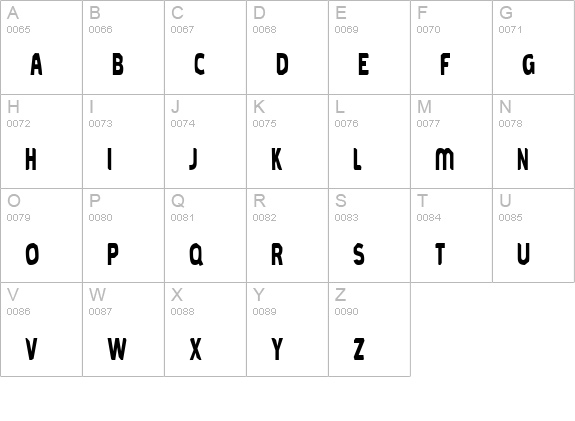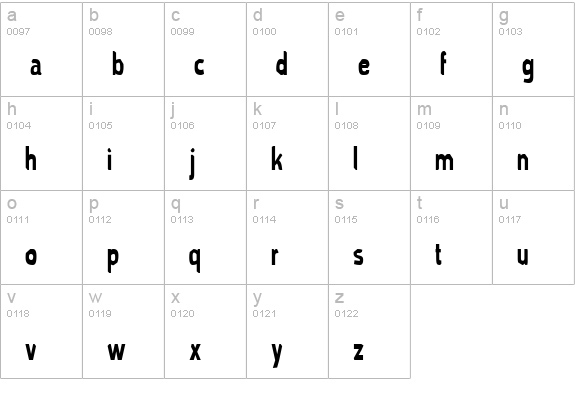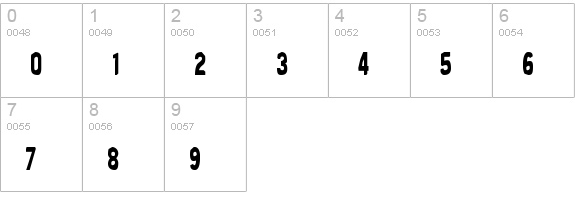
Mold Papa Font Details
Mold Papa font is a unique and quirky typeface that exudes personality and charm. With its playful curves and bold lines, this font is perfect for adding a touch of whimsy to any project. Whether you're designing a poster, logo, or website, Mold Papa font will make your text stand out and grab attention. The best part? Mold Papa font is completely free to download at FontsMarket.com. That's right, you can add this fun and creative font to your collection without spending a dime. So why wait? Download Mold Papa font today and let your creativity run wild!